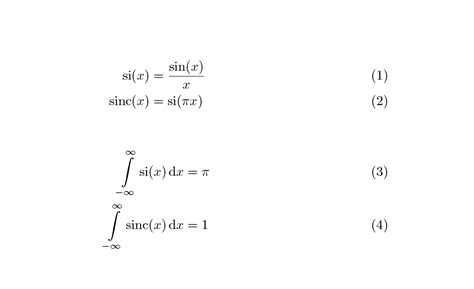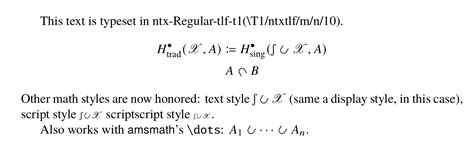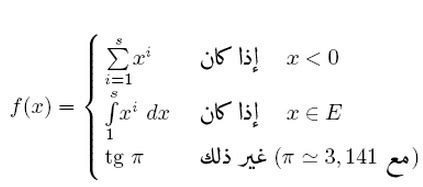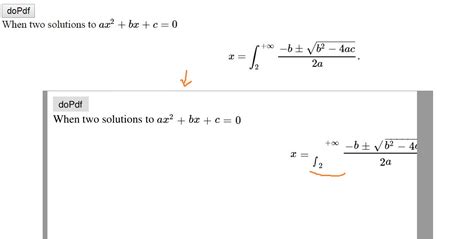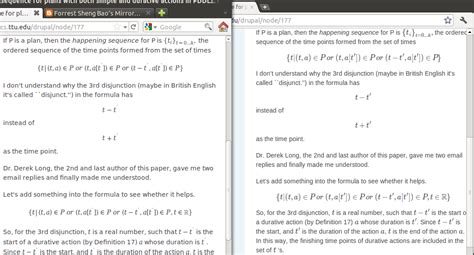
Amsmath Script Font : python - Latex font style issues using amsmath and sfmath ... : The amsmath package is the successor of the amstex package.. Several fonts require the addition of the line \usepackage{amssymb} to the preamble to work. There are some font typefaces that support only a limited number of characters; Amsmath amsmath mathbb wrisym urwchancal eufrak mathbb amssymb fourier arevmath. In 2016, luatex version 1 was released, and attempts to use amsmath with lualatex would fail. Imata script font imata is a simply stunning and effortless script with a modern feel.
Monotype script w01 bold font info. Download 10,000 fonts with one click for $19.95. Is it perhaps possible to change the font style of a single letter/word to that of amsmath? Frank mittelbach rainer scho¨pf michael downes. The package amsmath sets the \cmex@opt ag to 7 or 10, and the package amsfonts sets the ag to the cmex10 font gets special preload handling in the building of the latex format le; The best selection of script fonts for windows and macintosh. Script fonts give a profound touch to a design. Amsmath amsmath mathbb wrisym urwchancal eufrak mathbb amssymb fourier arevmath.
Amsmath amsmath mathbb wrisym urwchancal eufrak mathbb amssymb fourier arevmath. The amsmath package is the successor of the amstex package. All fonts are provided as adobe type 1 files, and all except the euler fonts are provided as basic latex support for the symbol fonts is provided by amsfonts.sty, with names of individual symbols. I mostly use them for wedding and invitation cards but they also look great on typography posters. Script typefaces are based upon the varied and often fluid stroke created by handwriting, pretty much like the cursive fonts just typically more elegant. The package amsmath sets the \cmex@opt ag to 7 or 10, and the package amsfonts sets the ag to the cmex10 font gets special preload handling in the building of the latex format le; The main advantage over other similar fonts is the lack of connections between characters, that allows wide variety of spacing. We're introducing new and amazing handlettered script font freebie that you have only dreamed of 🙂 this font is part of a premium product, so it's.
Some scripts are more formal like elegant calligraphy, while others are casual like cursive handwriting. There are some font typefaces that support only a limited number of characters; The document classes, and amsmath. Script font is a broad style that refers to any typeface that looks like it was drawn by hand. I mostly use them for wedding and invitation cards but they also look great on typography posters. Monotype script! is a trademark of monotype typography, ltd which may be registered in certain jurisdictions. All fonts are provided as adobe type 1 files, and all except the euler fonts are provided as basic latex support for the symbol fonts is provided by amsfonts.sty, with names of individual symbols. Amsmath amsmath mathbb wrisym urwchancal eufrak mathbb amssymb fourier arevmath.
It also has an opentype math font that can be used by the equation editor in word 2007 and later.
See more ideas about fonts, script. It was substantially overhauled to. Monotype script w01 bold font info. Frank mittelbach rainer scho¨pf michael downes. Amsmath amsmath mathbb wrisym urwchancal eufrak mathbb amssymb fourier arevmath. Get inspired by its unique charm. Script font is a broad style that refers to any typeface that looks like it was drawn by hand. Monotype is a trademark of. The document classes, and amsmath. The amsmath package is the successor of the amstex package. They are organized into highly regular formal types. Monotype script! is a trademark of monotype typography, ltd which may be registered in certain jurisdictions. The package amsmath sets the \cmex@opt ag to 7 or 10, and the package amsfonts sets the ag to the cmex10 font gets special preload handling in the building of the latex format le;